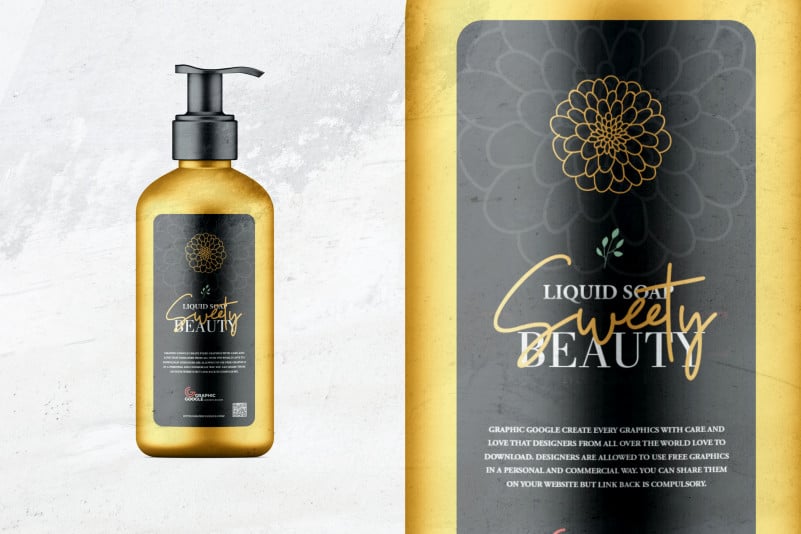
Rochestar Stylish Handwritten Font
Rochestar Stylish Handwritten Font is a monoline style writing, simple and stylish. Beautiful and elegant monoline font. This monoline font is perfect for weddings, watermarks, branding such as interviews, business cards, product logos, etc.
Rochestar is perfect for branding projects, logos, wedding designs, social media posts, advertisements, product packaging, product designs, labels, photography, watermarks, invitations, stationery, and any project that requires a sense of handwritten signature.